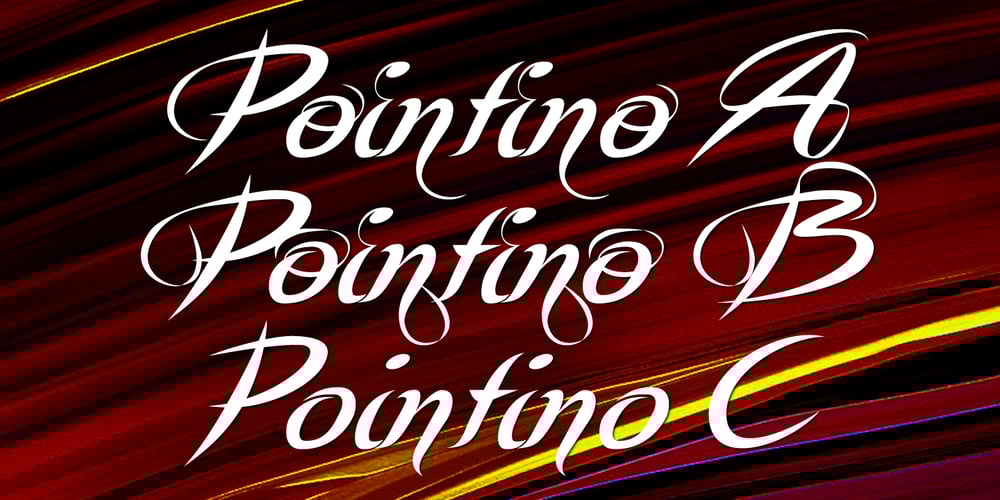
Pointino Font Family was designed by Gert Wiescher and published by Wiescher Design. Pointino contains 6 styles and family package options. Pointino is a very pointed script. It comes in three versions: Pointino-A has good looking curves, Pointino-B has more of those good looking curves and Pointino-C has fewer, but still sensational curves. Pointino is very sexy, as sexy as typefaces can get. You should mix the three cuts and enjoy the sexy look of it. I only sell the entire set of three for a sexy price. Your pointedly sexy designer Gert Wiescher